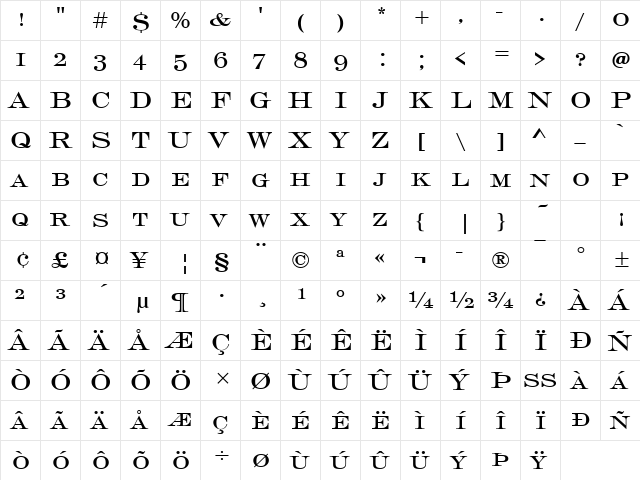
Engravers Becker Caps Regular
Design Context for Engravers Becker Caps Typeface
Engravers Becker Caps offers clean, dependable letterforms without strong stylistic allegiance, making it a practical choice for designers who need flexibility.
Pro Tip: Use Engravers Becker Caps in both headline and body roles to test its range before committing to a single application.